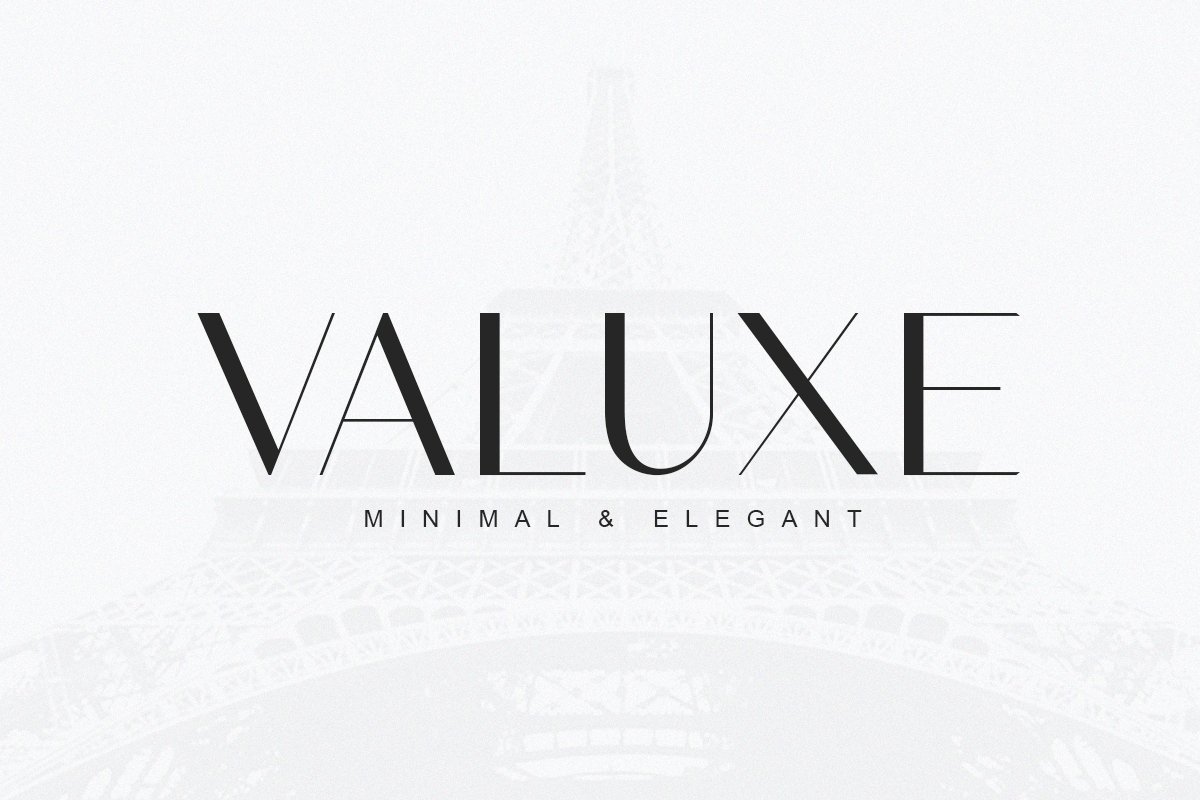
About the Valuxe Minimal Elegant Font
Valuxe — modern and minimalist sans serif, This font pairs well with a basic font like Arial and any script with an elegant style, You will get :-file , otfThankyou for coming,